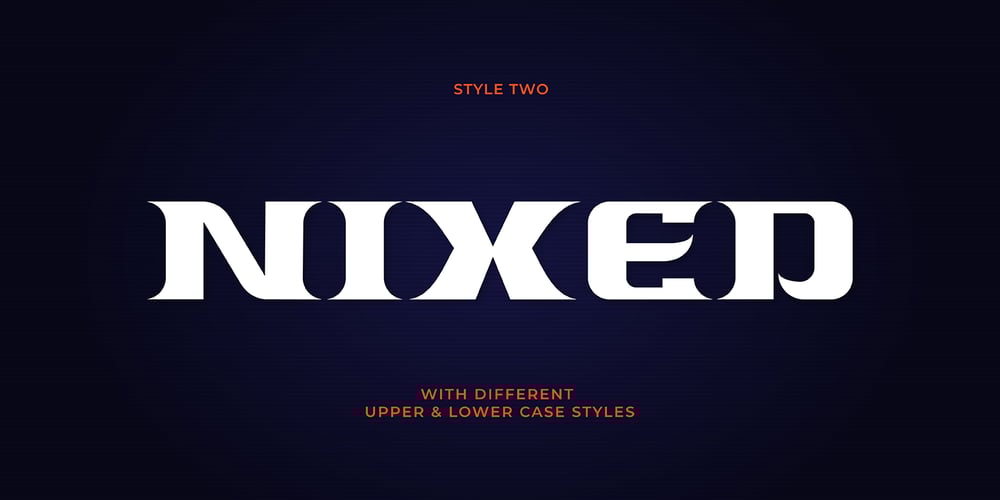
Nixed Font Family was designed by khaidir and published by Gatype. Nixed contains 1 styles and family package options. Nixed is a cool and daring display font. Add it to your posters, headlines, banners, or anything that requires strong and modern typography.